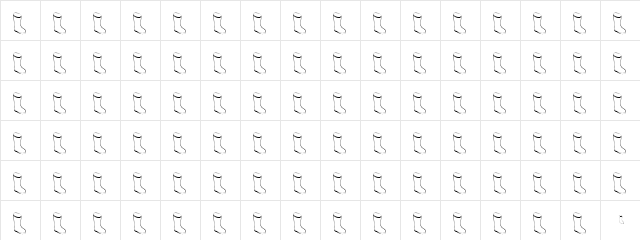
OldBootBase Regular Free Font
OldBootBase Regular
Design Context for OldBootBase
OldBootBase is a composed and adaptable typeface that performs quietly and consistently across a wide range of design contexts.